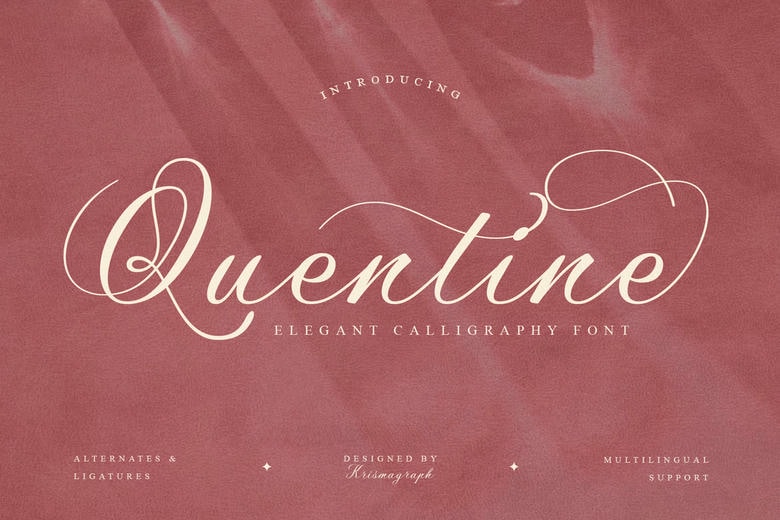
Quentine Script Font
Quentine- Elegant calligraphy font is a beautiful calligraphy font that embodies the beauty of a beautiful handwriting that remains everlasting. This typeface is smooth with elegant lines and subtle swashes in it making it impressively romantic, sophisticated and charming and will be ideal in wedding stationeries, invitations, editorial headlines, and high-end branding assignments.
The balance between beauty and readability is achieved by its clean lines and beautiful ligatures. Quentine comes with alternates and ligatures and the ability to work completely in more than one language, providing the inventive power to make your own unique and beautiful typographic images.
Quentine Elegant Calligraphy Font